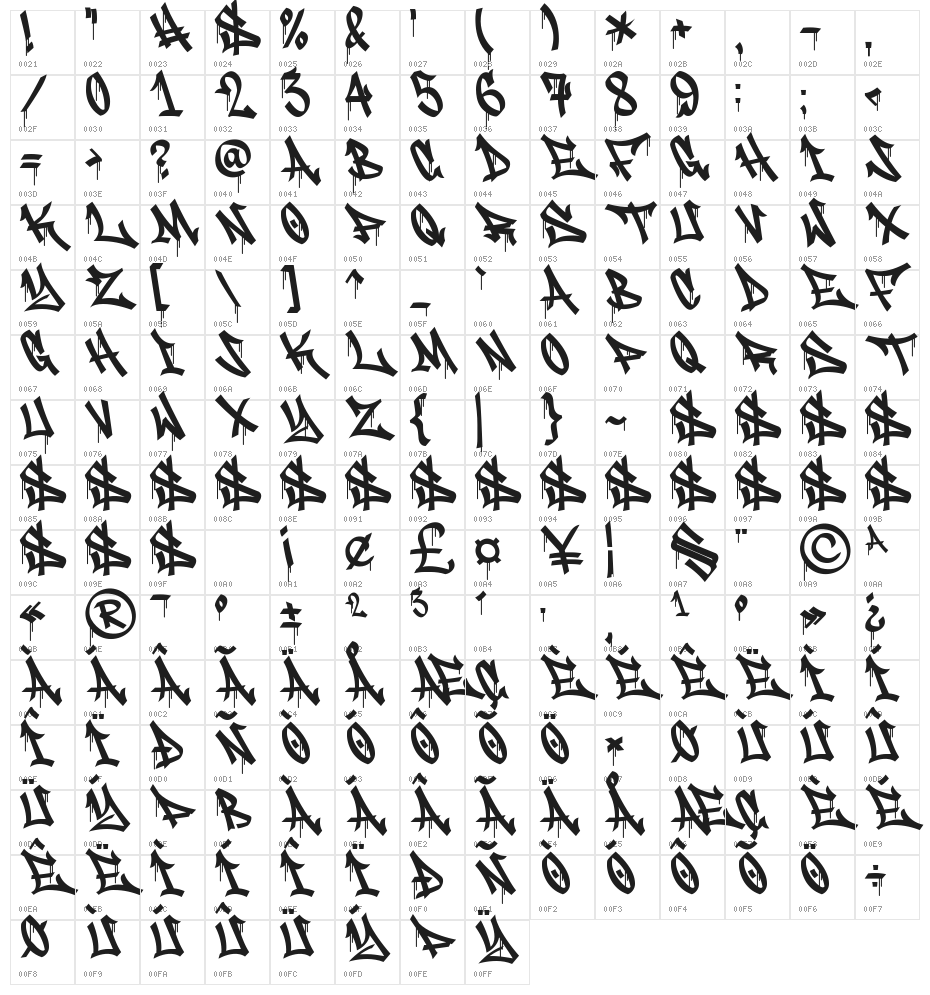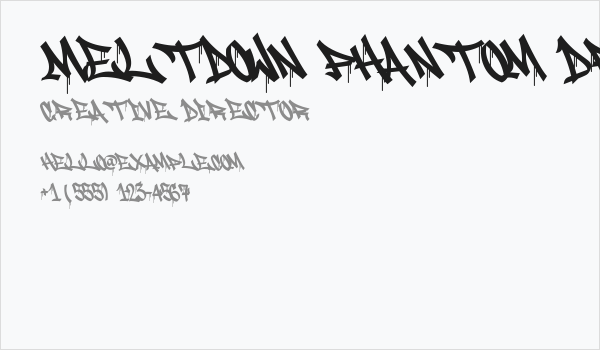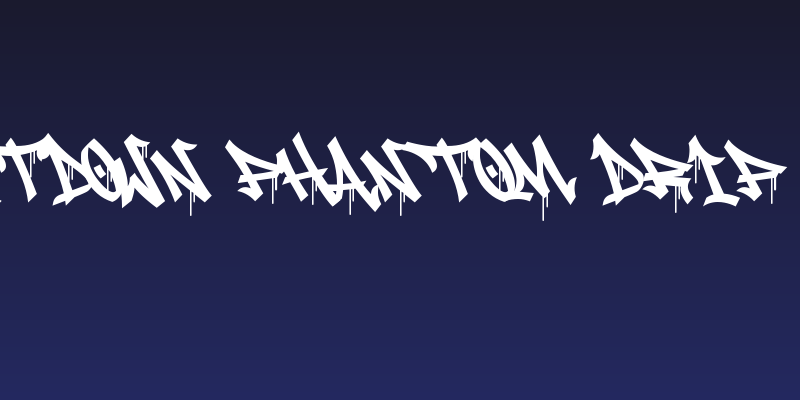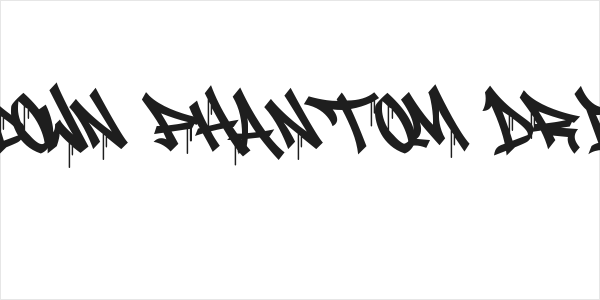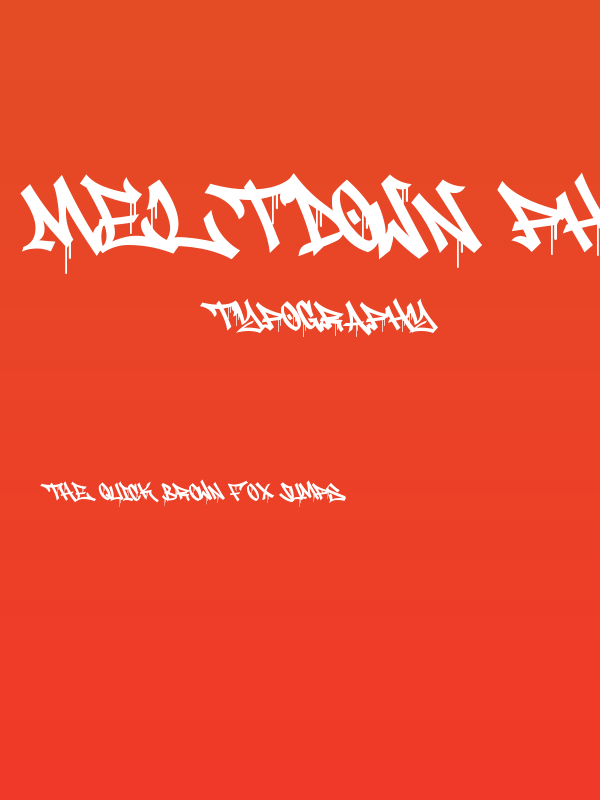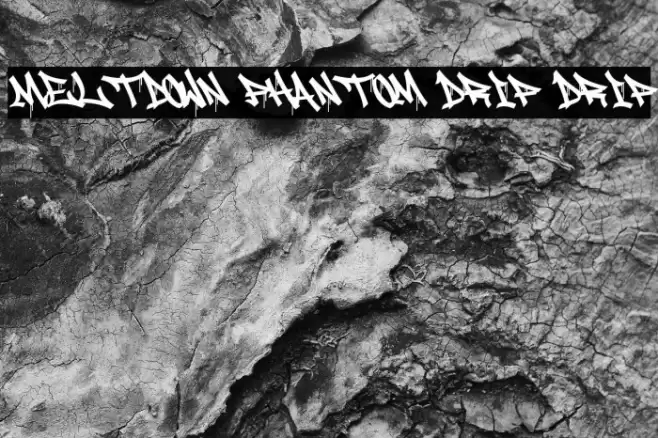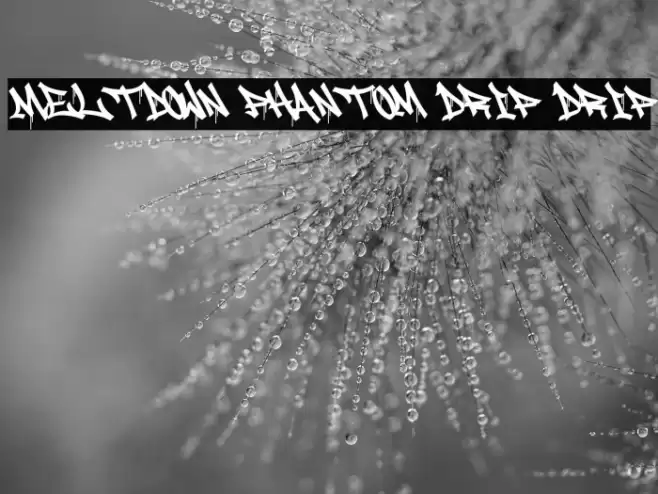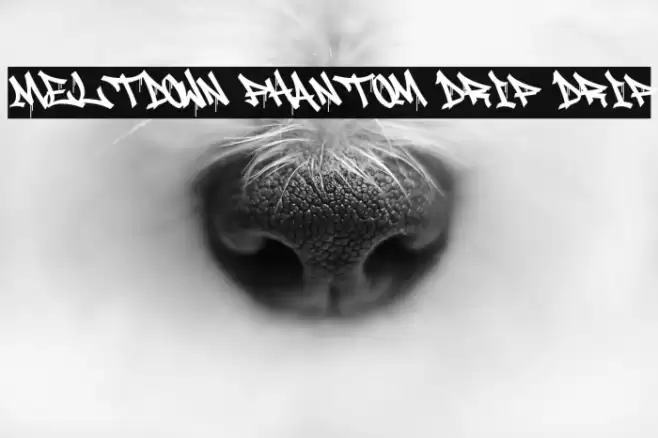
Meltdown Phantom Drip Drip Font
Meltdown Phantom Drip Drip Description
A graffiti-style font with sharp, angular lines and dripping effects, resembling street art.
| Overall Style | Urban, Graffiti, Street Art |
| Use Case | Headlines, Logos, Posters, Streetwear designs |